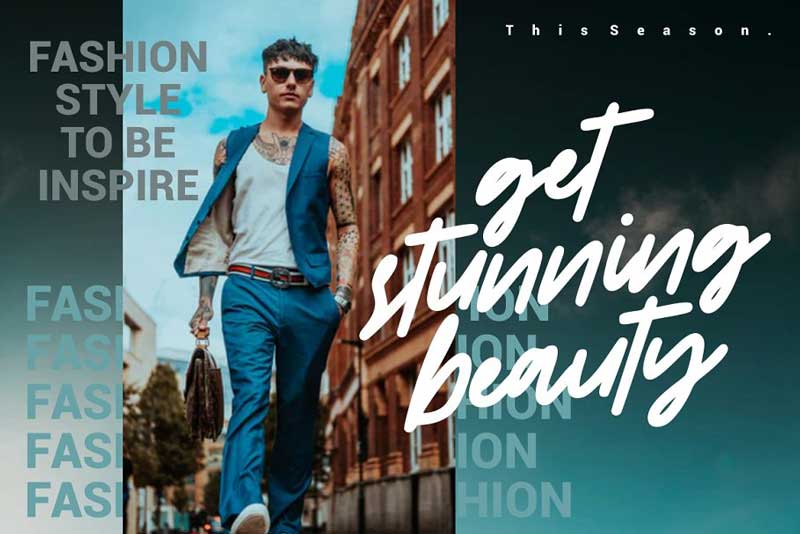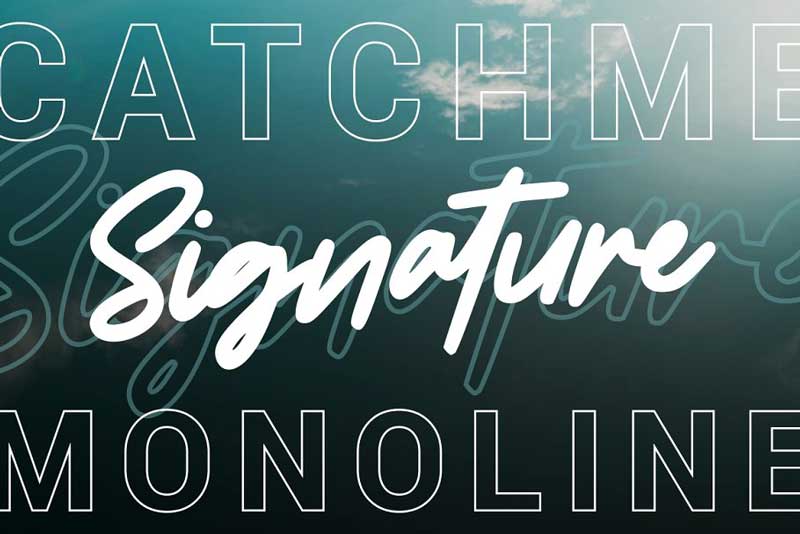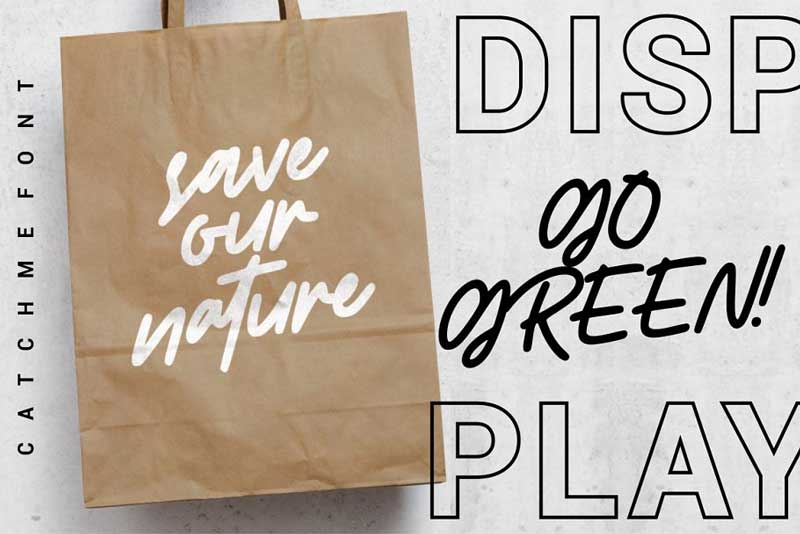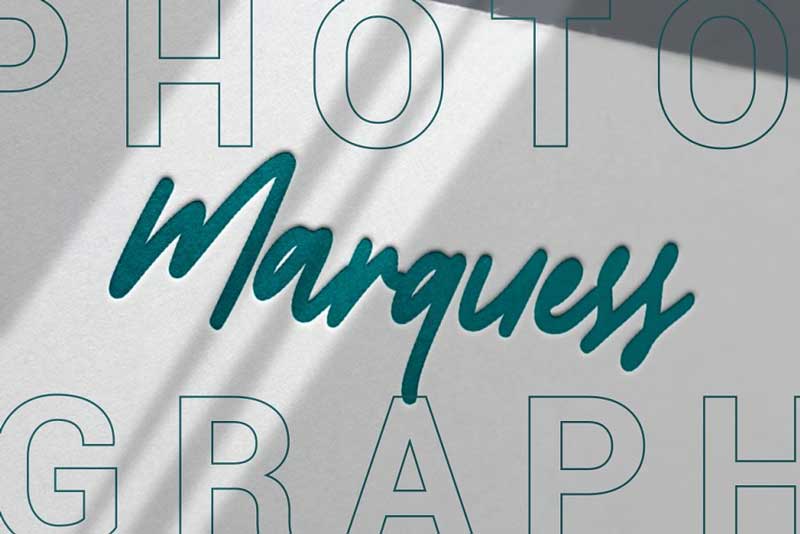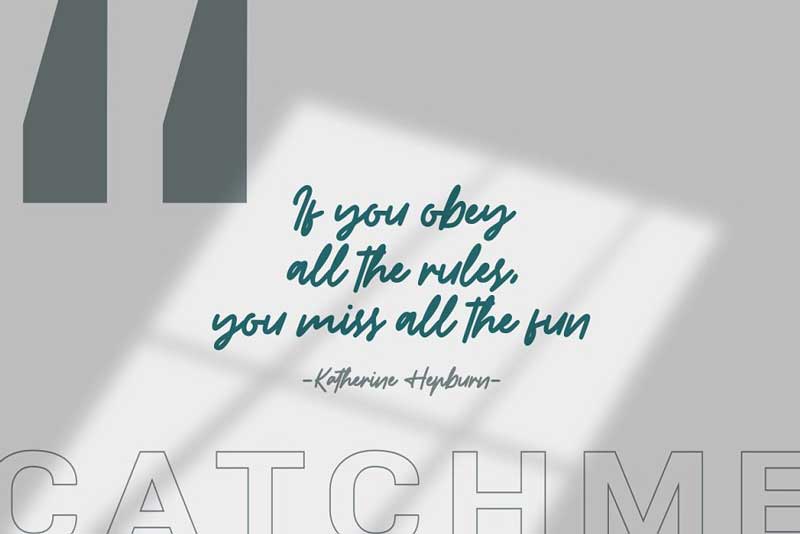
Catchme – Signature Font
Catchme Signature Font
Introducing Catchme – Signature Font. Catchme born from handwriting style fonts. Versatile for design poster, logo, branding, label, quote, headline profile, banner, t-shirt design, packaging, magazine, brochure, and many more your amazing work with these fonts.